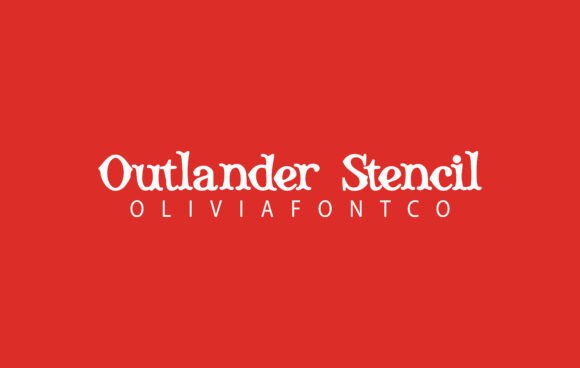
Outlander Stencil Font: Elevate Your Designs with a Romantic Touch
The Outlander Stencil font is a stunning, authentic handwritten font that exudes a romantic touch. Designed to be a true favorite among designers and creative enthusiasts, this font has the potential to take your ideas to new heights. Its exceptional legibility and versatility make it an excellent choice for a wide range of design projects, from magazine headlines to wedding invitations.
The Story Behind Outlander Stencil Font
The Outlander Stencil font is a masterpiece of font design, carefully crafted to evoke a sense of nostalgia and romance. Its unique, handwritten style is reminiscent of classic literature and vintage designs, making it perfect for projects that require a touch of elegance and sophistication.
Key Features of Outlander Stencil Font
- Authentic Handwritten Style: The Outlander Stencil font boasts an authentic, handwritten look that adds a personal touch to any design.
- Romantic Touch: This font’s romantic undertones make it perfect for projects that require a sense of elegance and sophistication.
- High Legibility: The Outlander Stencil font is designed to be highly legible, making it suitable for use as both title and body text.
- Versatile: This font can be used for a wide range of design projects, including magazine headlines, social media graphics, branding, wedding invitations, and more.
Uses of Outlander Stencil Font
The Outlander Stencil font is an incredibly versatile font that can be used for various design projects. Here are some ideas to get you started:
Design Projects that Outlander Stencil Font is Perfect for:
- Magazine Headlines: Add a touch of elegance to your magazine headlines with the Outlander Stencil font.
- Social Media Graphics: Create stunning social media graphics that stand out from the crowd with this unique font.
- Branding: Establish your brand’s identity with a font that exudes sophistication and romance.
- Wedding Invitations: Make your wedding invitations truly special with the Outlander Stencil font’s romantic touch.
- Cards and Stationery: Add a personal touch to your cards and stationery with this beautiful, handwritten font.
Why Choose Outlander Stencil Font?
With so many fonts available, why choose the Outlander Stencil font? Here are some compelling reasons:
Top Reasons to Choose Outlander Stencil Font:
- Unique and Authentic: The Outlander Stencil font is a one-of-a-kind font that will set your designs apart from the rest.
- Elegant and Sophisticated: This font’s romantic undertones and elegant style make it perfect for projects that require a touch of sophistication.
- Highly Legible: The Outlander Stencil font is designed to be highly legible, ensuring that your message is conveyed clearly.
- Versatile: This font can be used for a wide range of design projects, making it a valuable addition to your font collection.
Tips for Using Outlander Stencil Font
To get the most out of the Outlander Stencil font, here are some tips to keep in mind:
Tips for Using Outlander Stencil Font:
- Pair with Other Fonts: Experiment with pairing the Outlander Stencil font with other fonts to create a unique look.
- Use for Headlines and Titles: Take advantage of the font’s elegant style and use it for headlines and titles.
- Add Texture and Effects: Experiment with adding texture and effects to the font to give it a more personalized look.
- Keep it Simple: Don’t be afraid to keep things simple and use the font on its own – it’s beautiful on its own!
The Outlander Stencil font is a stunning, authentic handwritten font that exudes a romantic touch. With its exceptional legibility, versatility, and elegant style, it’s perfect for a wide range of design projects. Whether you’re a designer, artist, or simply a creative enthusiast, this font is sure to become a favorite in your collection.